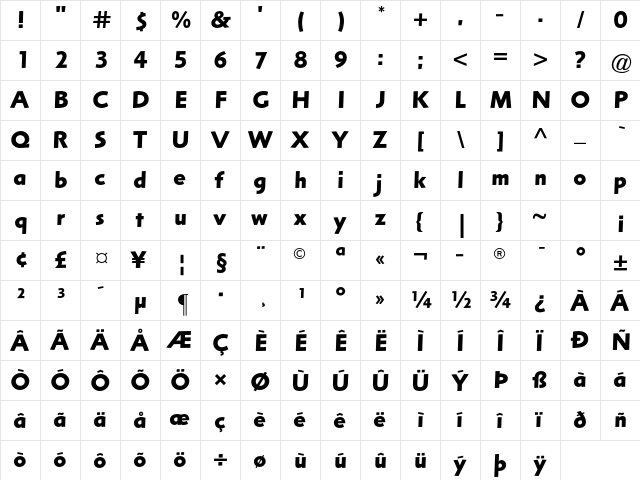
Arta Std Bold
| Foundry | International Typeface Corporation |
| Designer | David Quay |
Design Context for Arta Std Typeface
Arta Std takes a measured approach to typography — its balanced proportions and neutral character make it a reliable workhorse for both digital and print work. Its bold stroke weight gives it real presence on the page.
Pro Tip: Pair Arta Std with a font of contrasting weight or personality to build a more expressive typographic hierarchy.